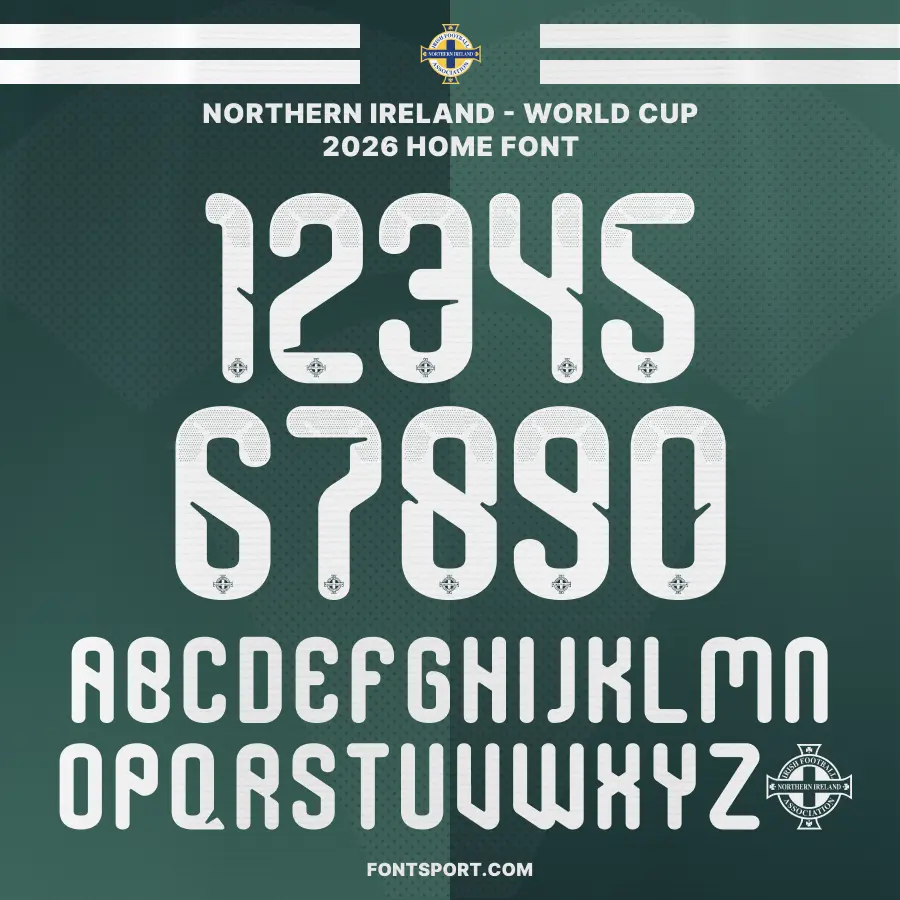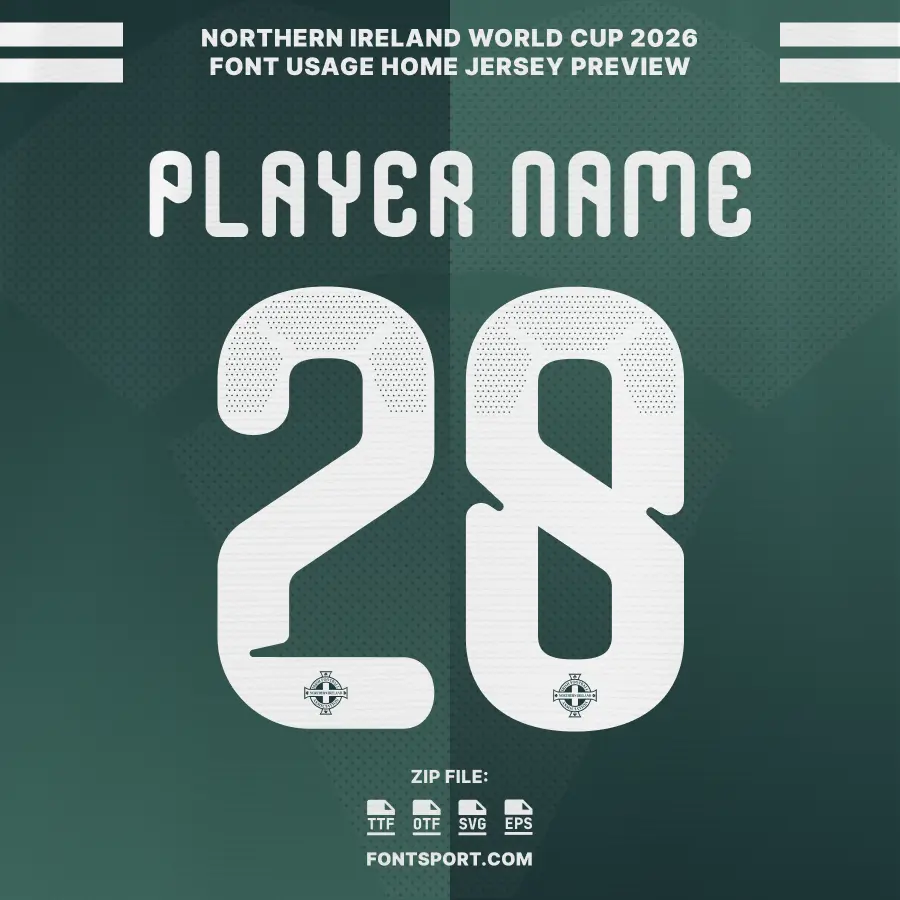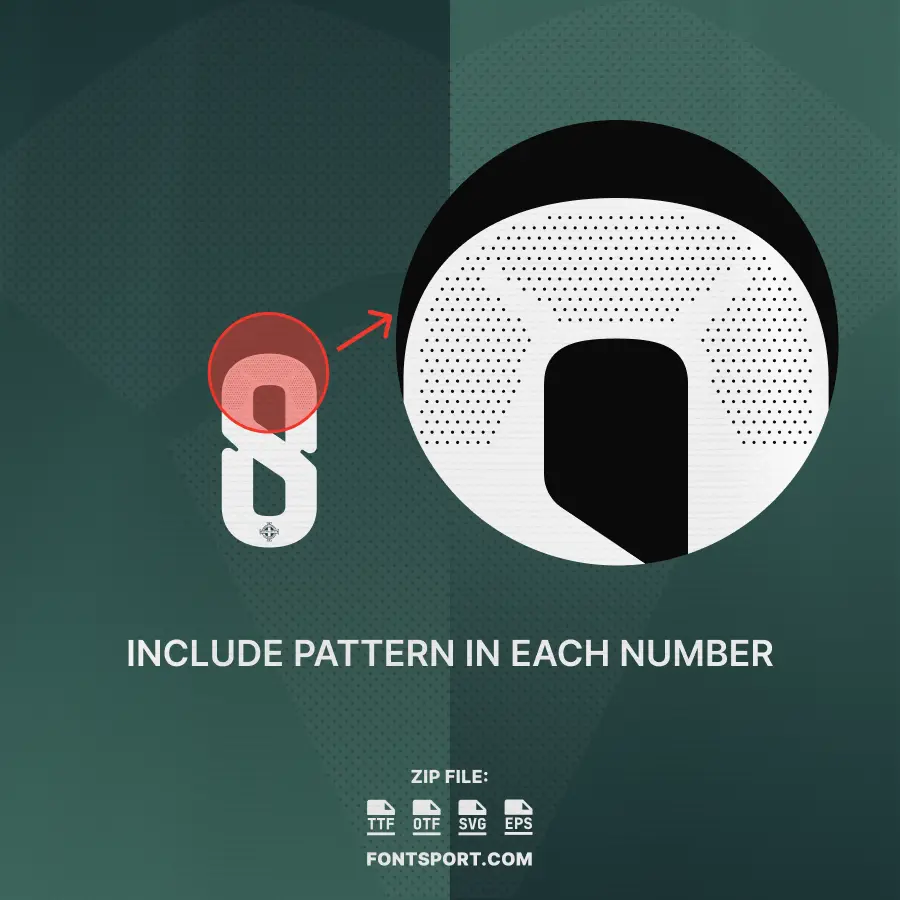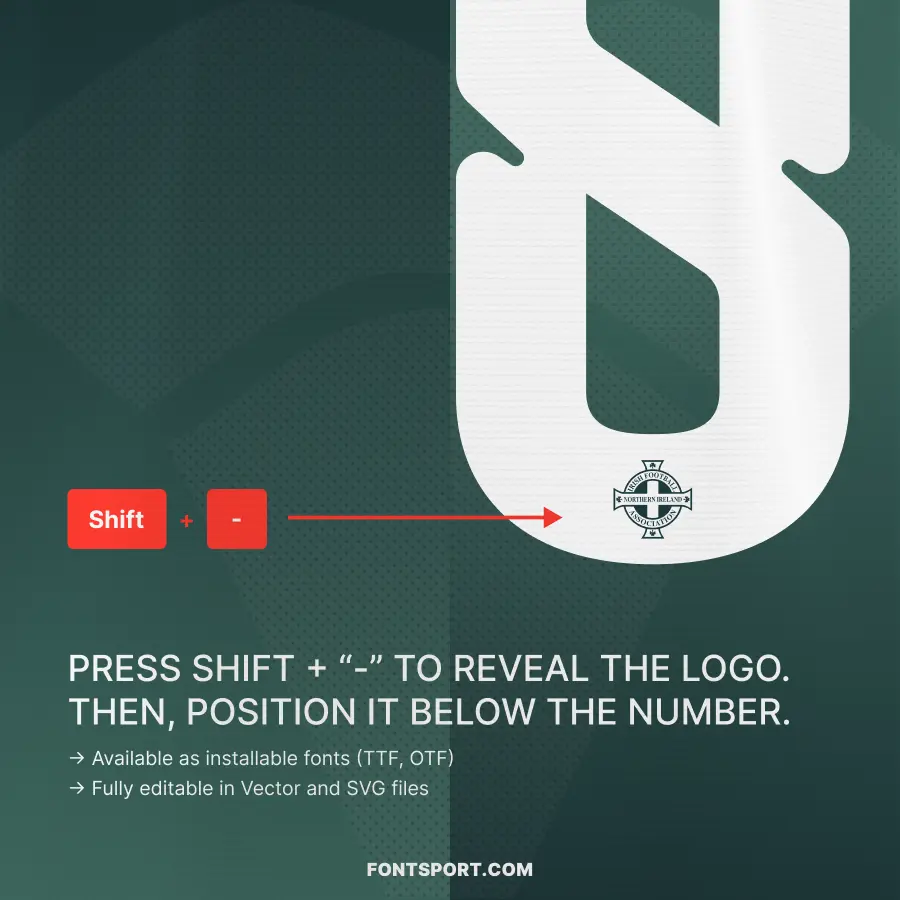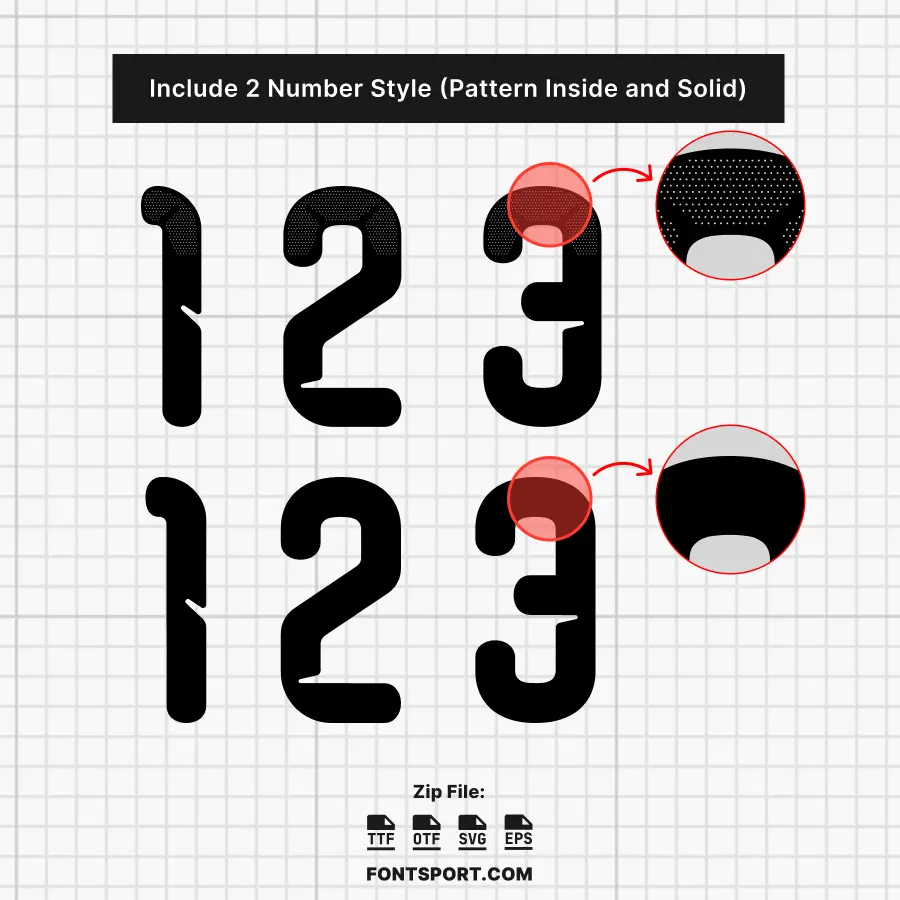
⭐ Bring Northern Ireland’s 2026 Identity Into Your Designs
The Northern Ireland World Cup 2026 Home Font Kit brings the bold and structured visual identity of the national team into your creative projects. This font captures the clean geometric look often found in contemporary football jersey typography. Because the characters use strong lines, sharp corners, and high clarity, the font works well for large headlines, jersey numbers, poster titles, merchandise prints, and social-media graphics.
You can use this typeface across many design platforms. It stays crisp at any size, which makes it reliable for both digital layouts and printed materials. Moreover, the style adds an energetic and modern football feel without complicating your workflow.
These assets give you complete flexibility to create jersey mockups, football posters, match-day announcements, wallpapers, banners, and merchandise concepts.
⚽ Why Use This Sport Font
This font kit helps you achieve a distinctive and professional football look. The bold shapes create strong visibility, while the structured forms ensure consistent alignment on jerseys and printed materials. Additionally, the vector version allows you to scale the artwork without losing quality.
As a result, this font kit is suitable for designers seeking a football font, sport font, or font for jersey that can be used for fast, clean, and modern layouts.
Northern Ireland World Cup 2026 Home Font – Official jersey numbers and alphabet design, authentic Northern Ireland font for FIFA World Cup 2026 kits.
Northern Ireland World Cup 2026 Home Font Kit